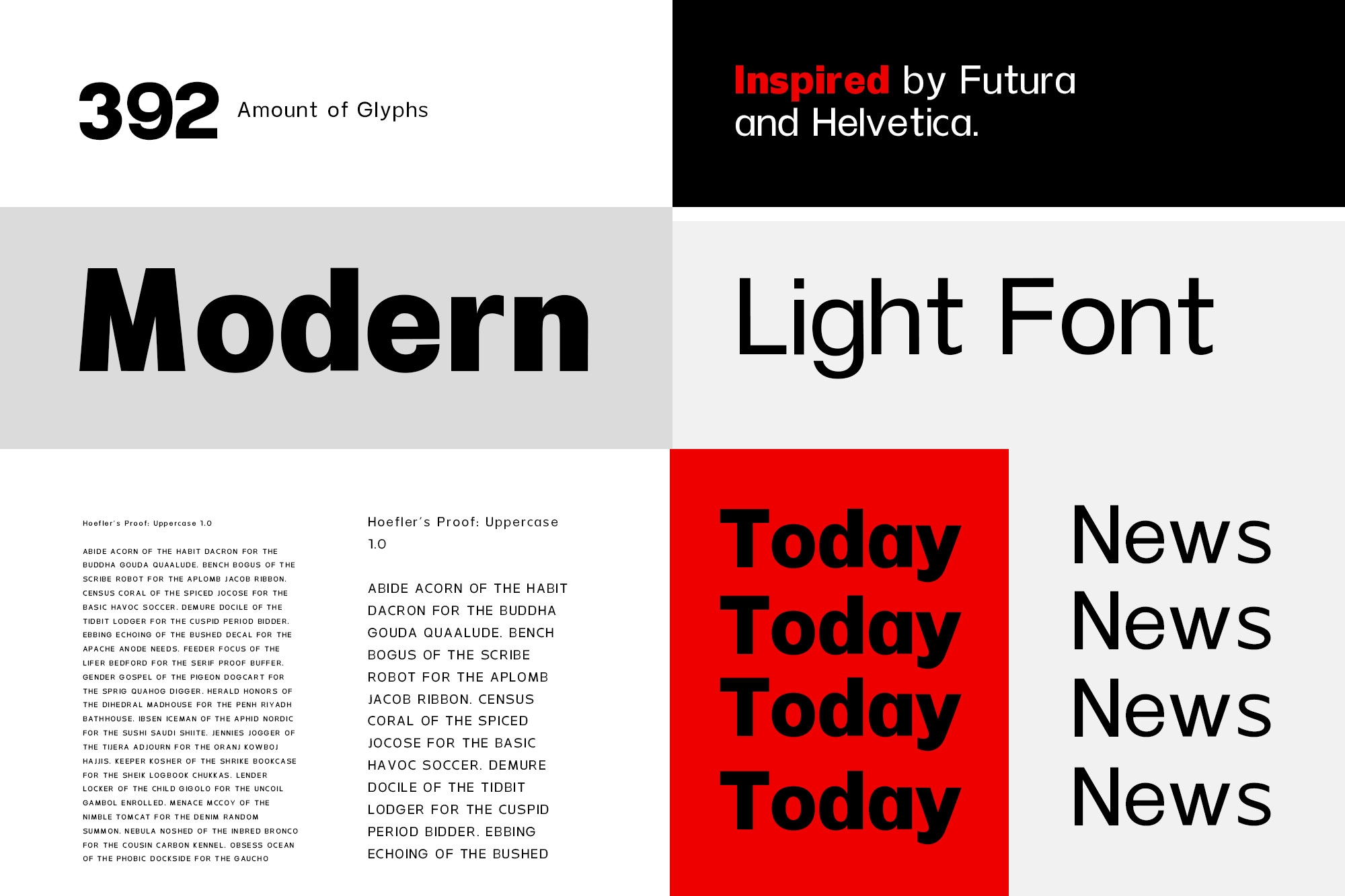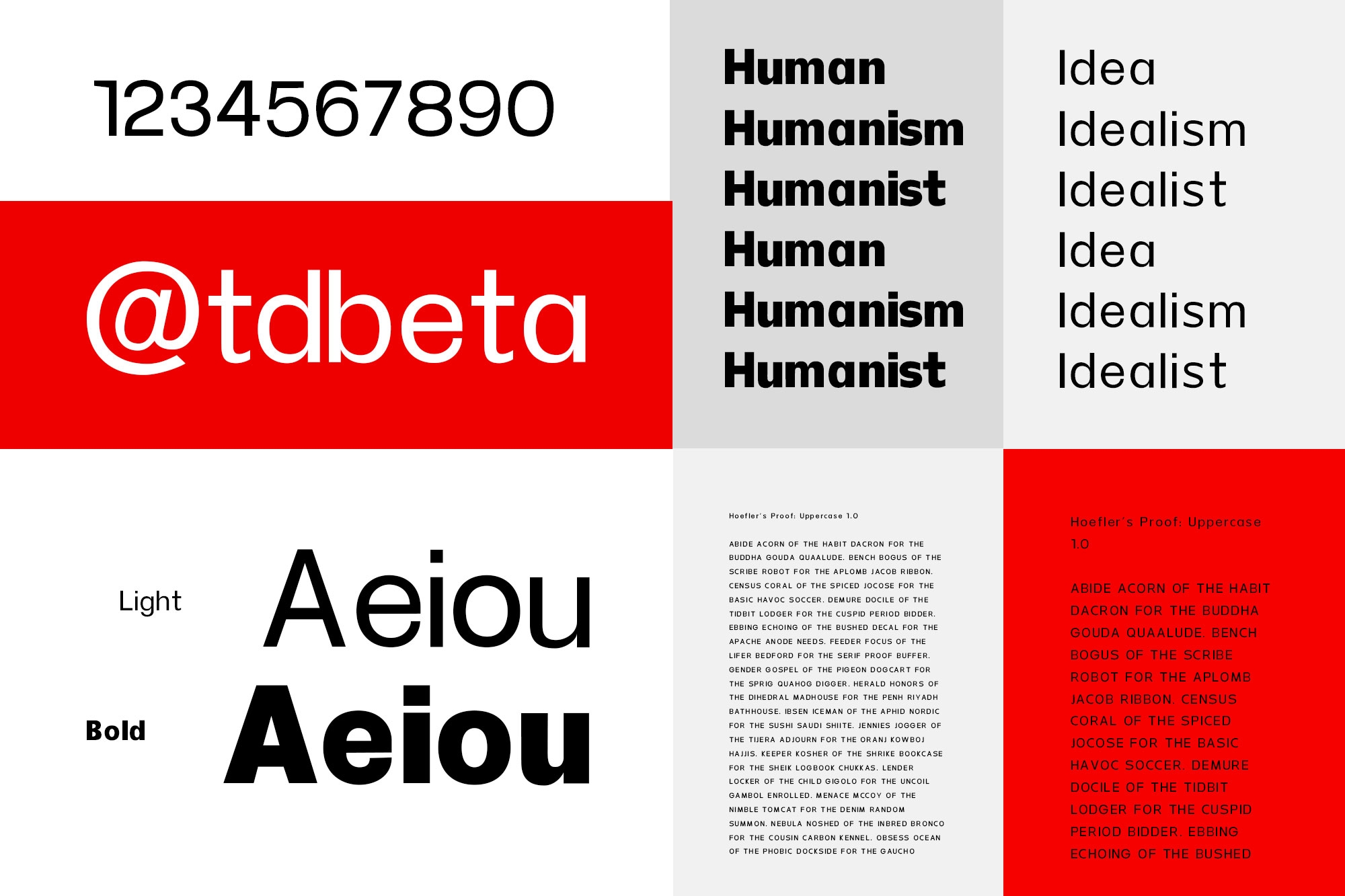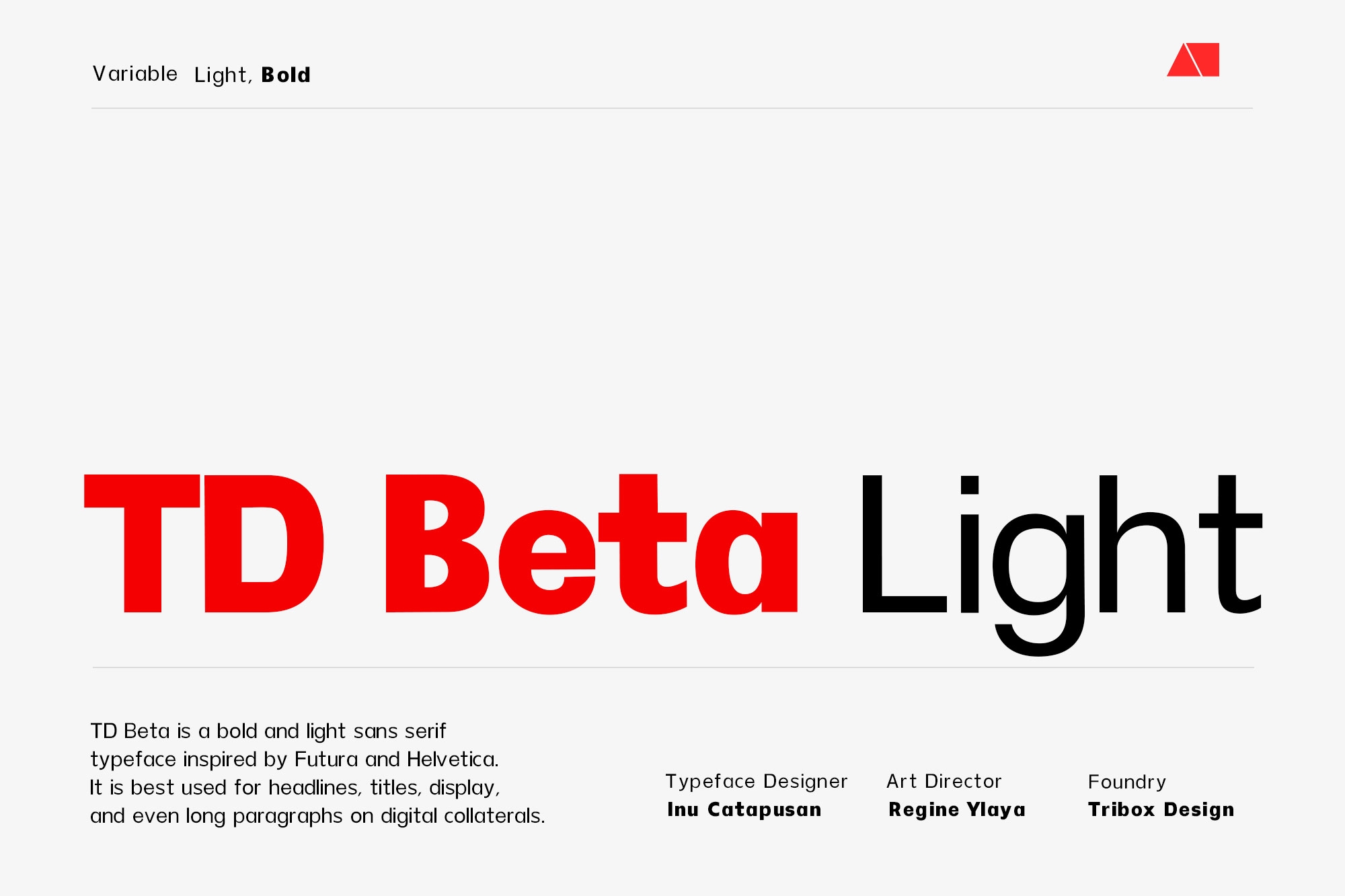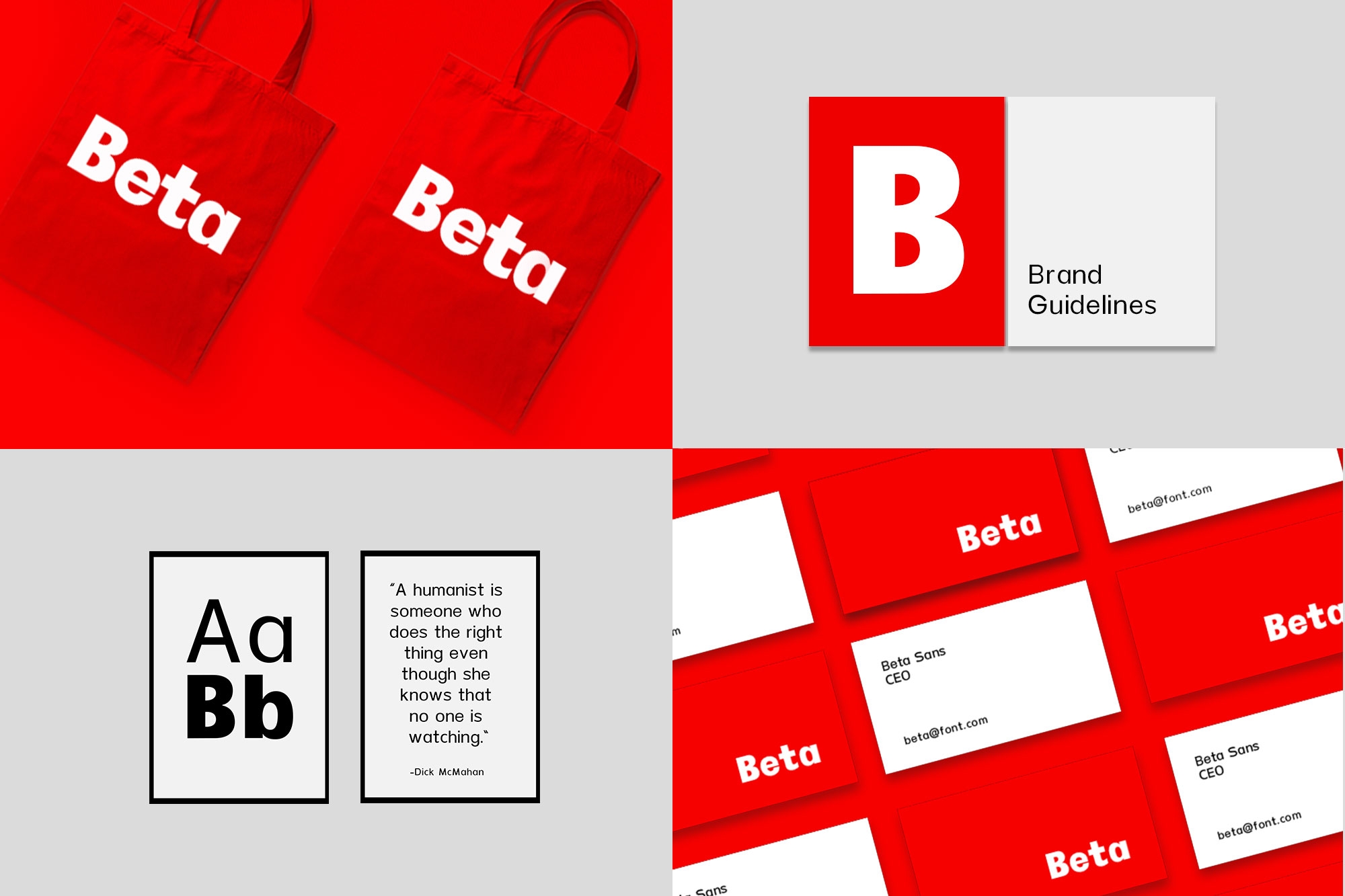
TD Beta Light By Tribox Design
TD Beta is a bold and light sans serif typeface inspired by Futura and Helvetica.
It is best used for headlines, titles, display, and even long paragraphs on digital collaterals.
The TD Beta font, proudly crafted by our very own Inu Catapusan and the Tribox Design team, is a bold sans serif typeface inspired by Futura and Helvetica. TD Beta has a total of 186 Glyphs that can support multiple languages.